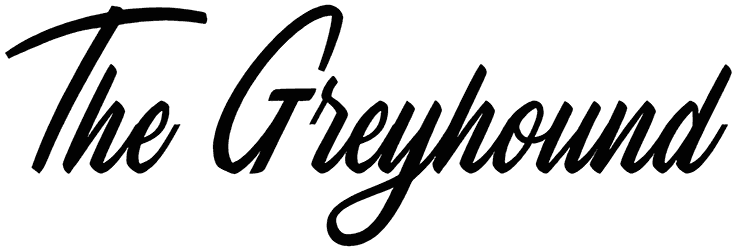
Meliska Font
In your future design, try a modern and urban manuscript and challenge your creativity. Meliska is a handwritten font with smooth lettering in full characters and supports two styles. If you love this kind of design, set this script font on your texts for example planners, formal posters, cosmetics ads, or the like, and overjoy the outcomes.
Designed by: Perspectype Studio